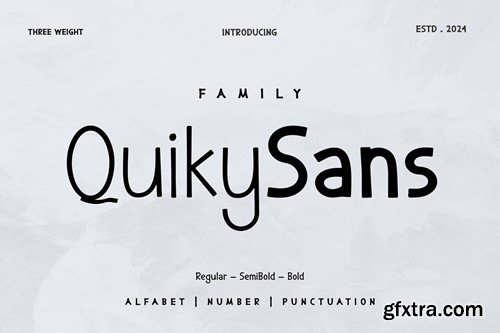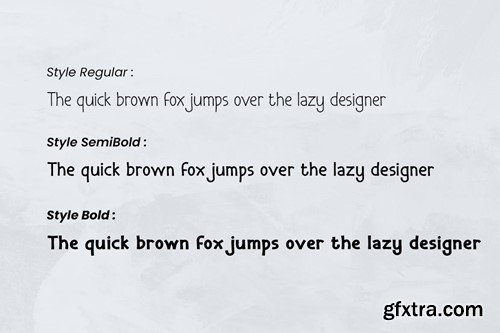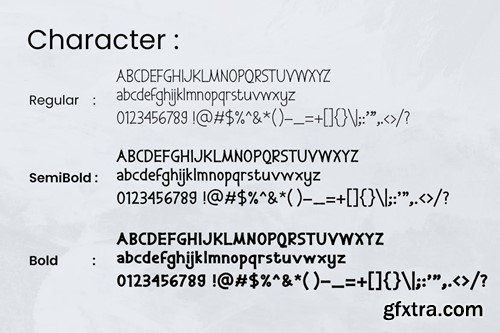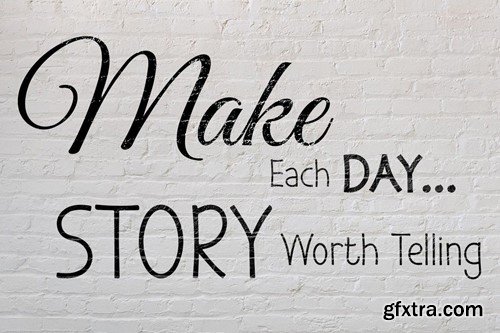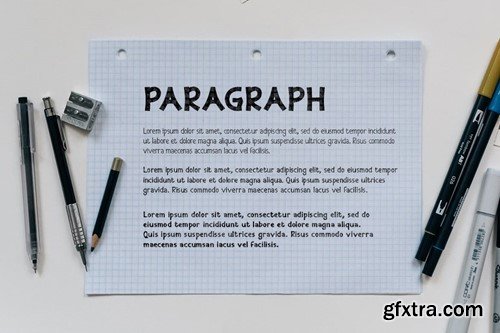
Quick Sans 字体家族 UERGT82
Quiky Sans Font Family
Quiky Sans - Textured Brush Font a unique display typeface perfect for titles, large text, branding, logotypes & graphic design purposes such as posters, pamphlets, and advertisements. This letter font can be a great choice for creating amazing logos, promotional content, and marketing presentations that can bring uniqueness and freshness at its best. FEATURES TTF/OTF/WOFF Uppercase and Lowercase letters Numbering and Punctuations Support Adobe Illustrator, Adobe Photoshop, Adobe InDesign, also works on Microsoft Word For buyers, thank you for using our font. We hope our work can help you create creative ideas.